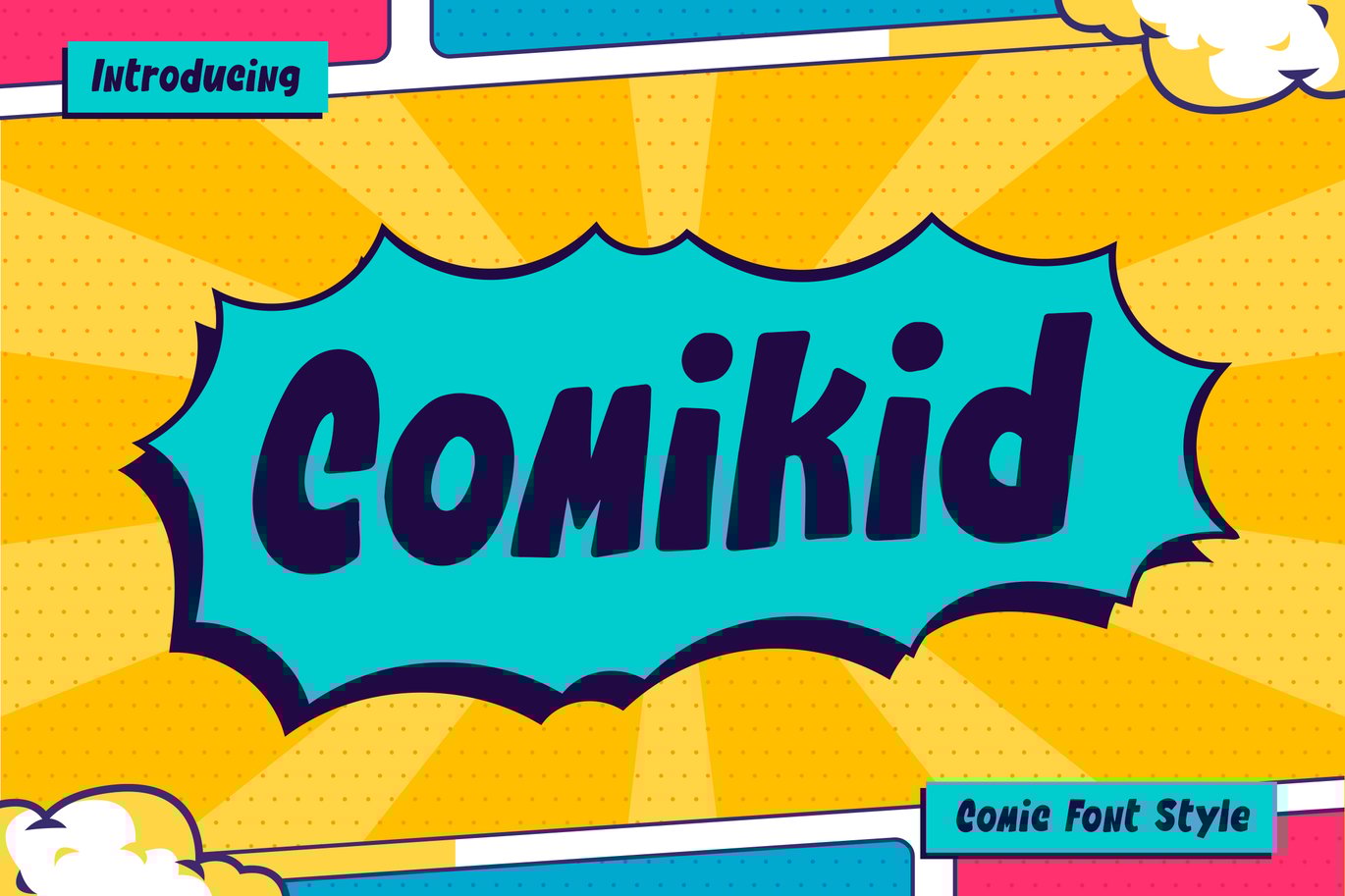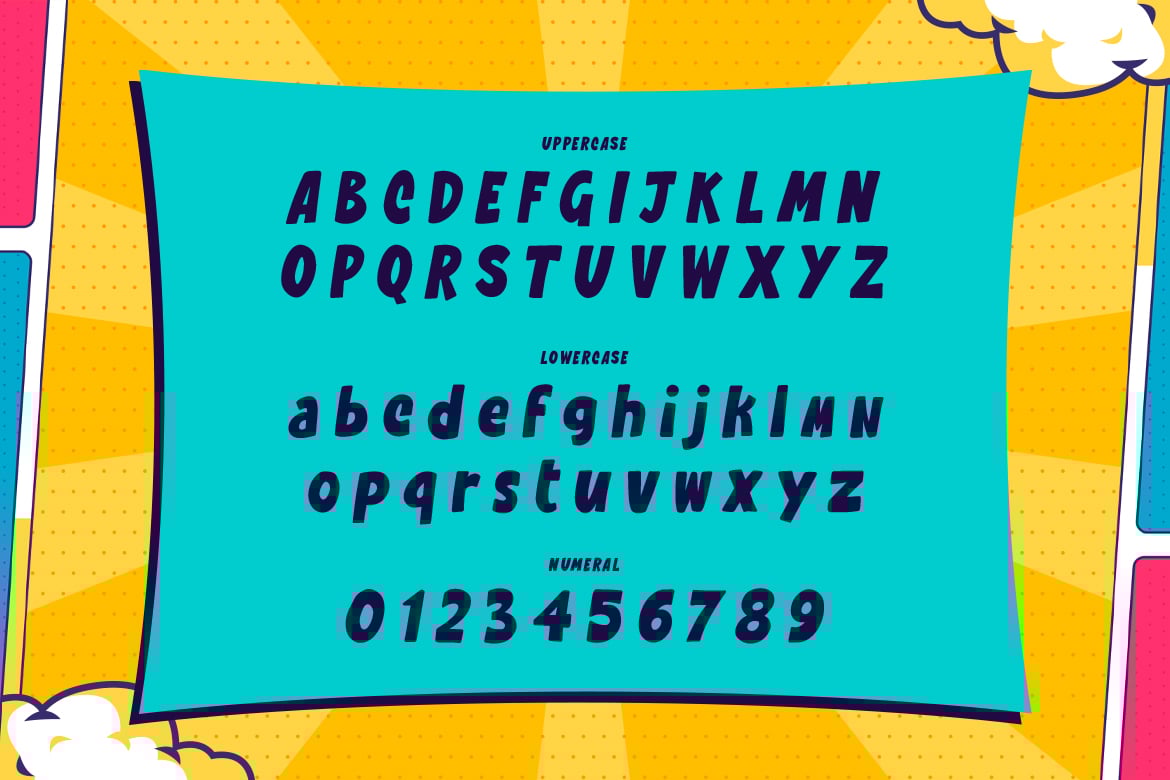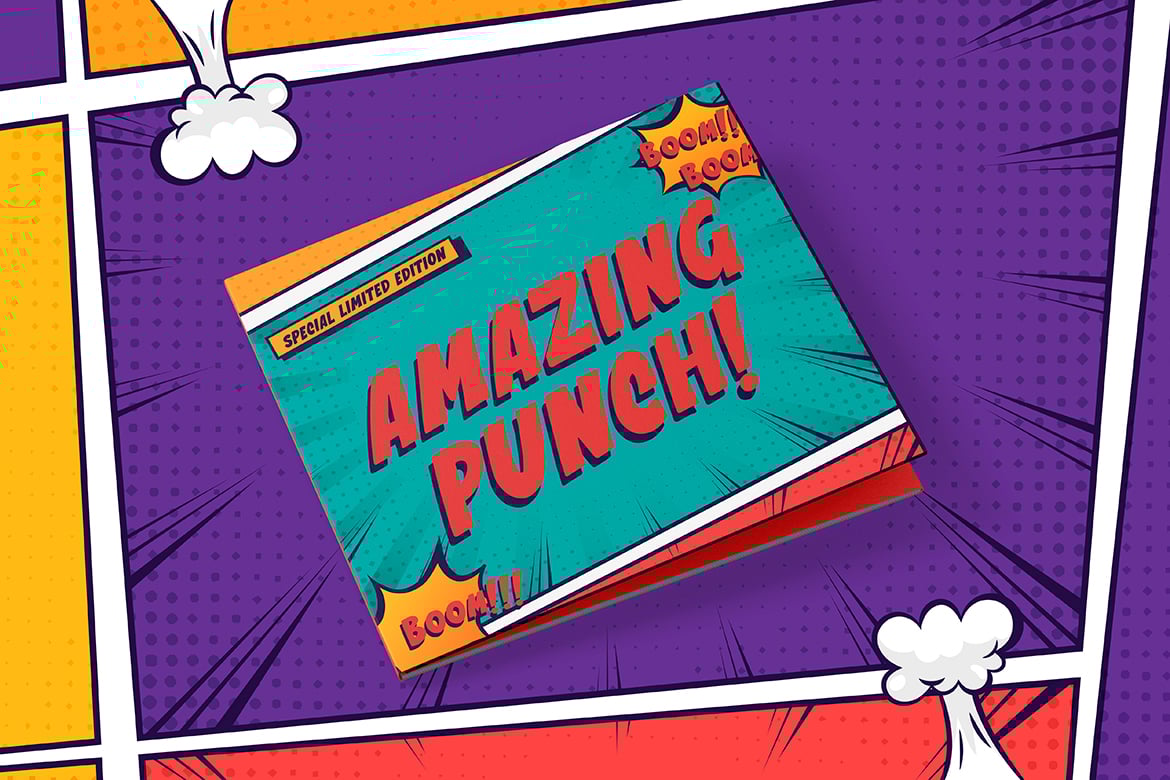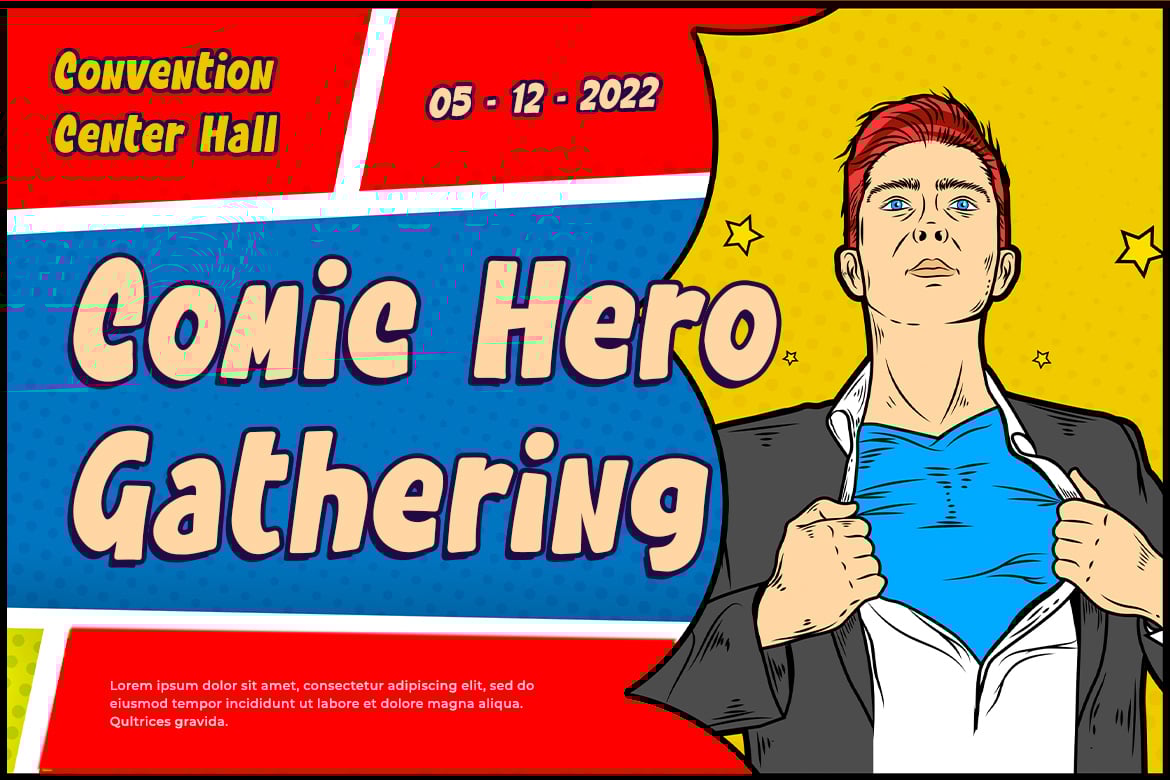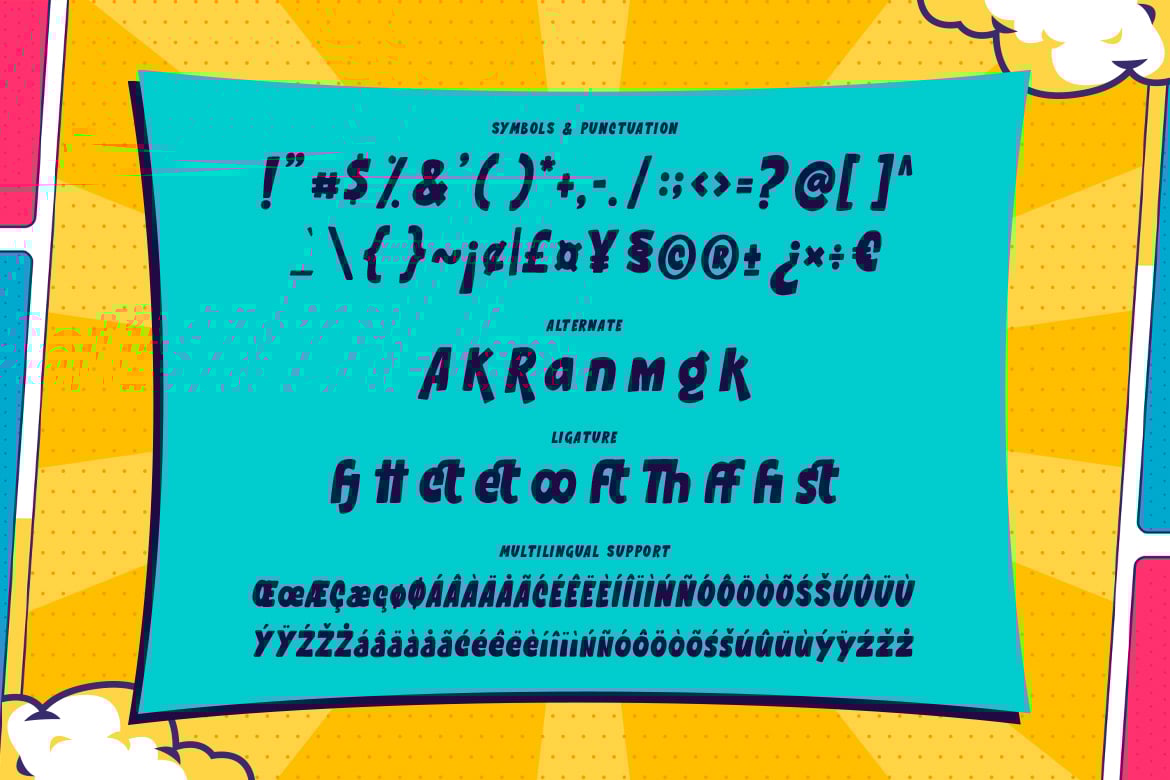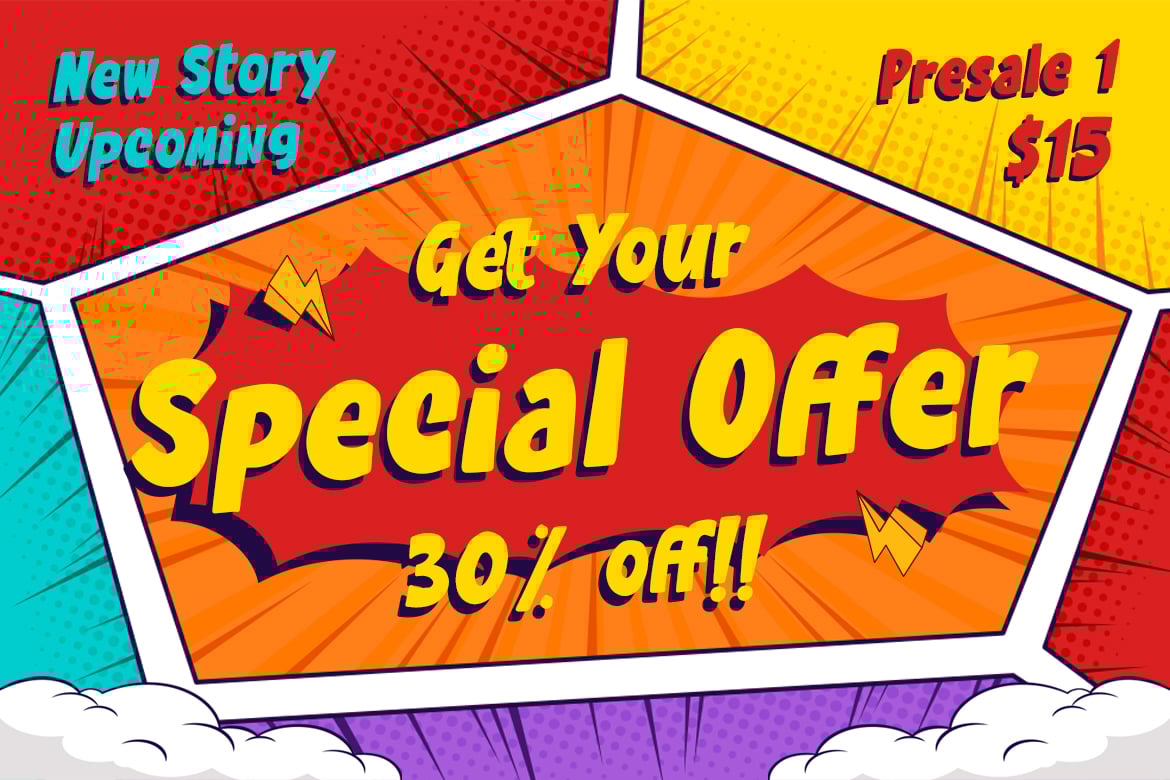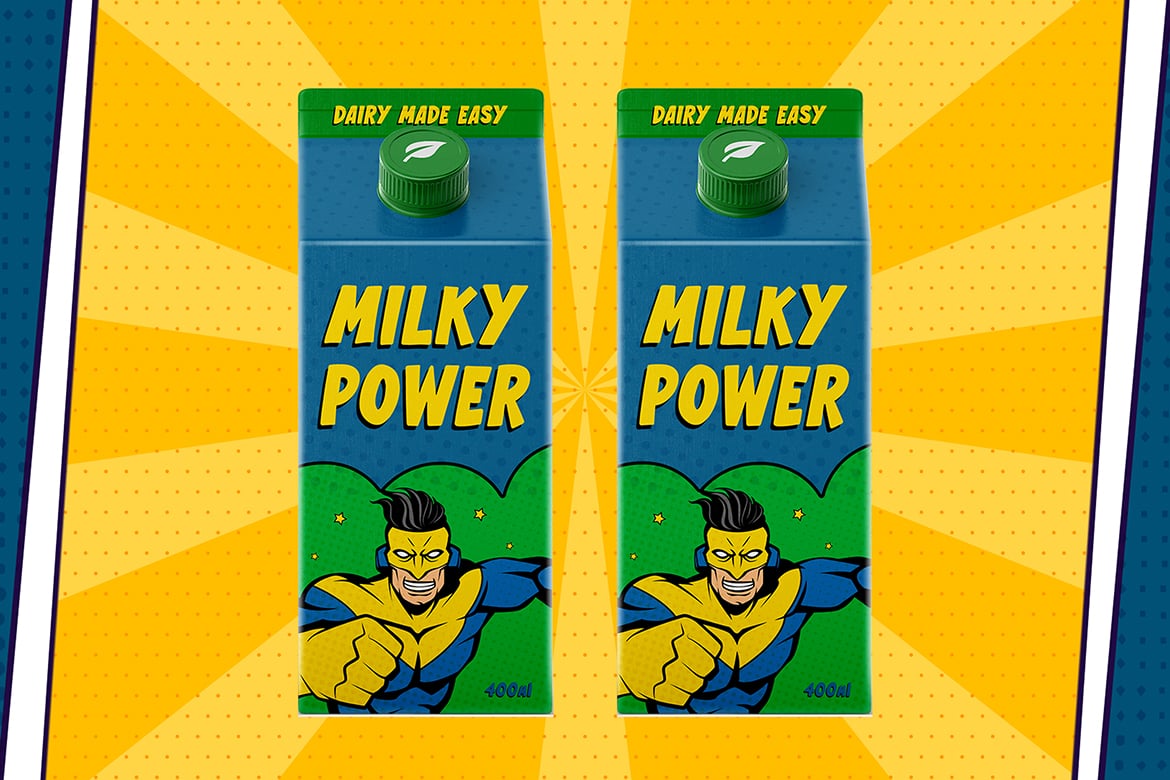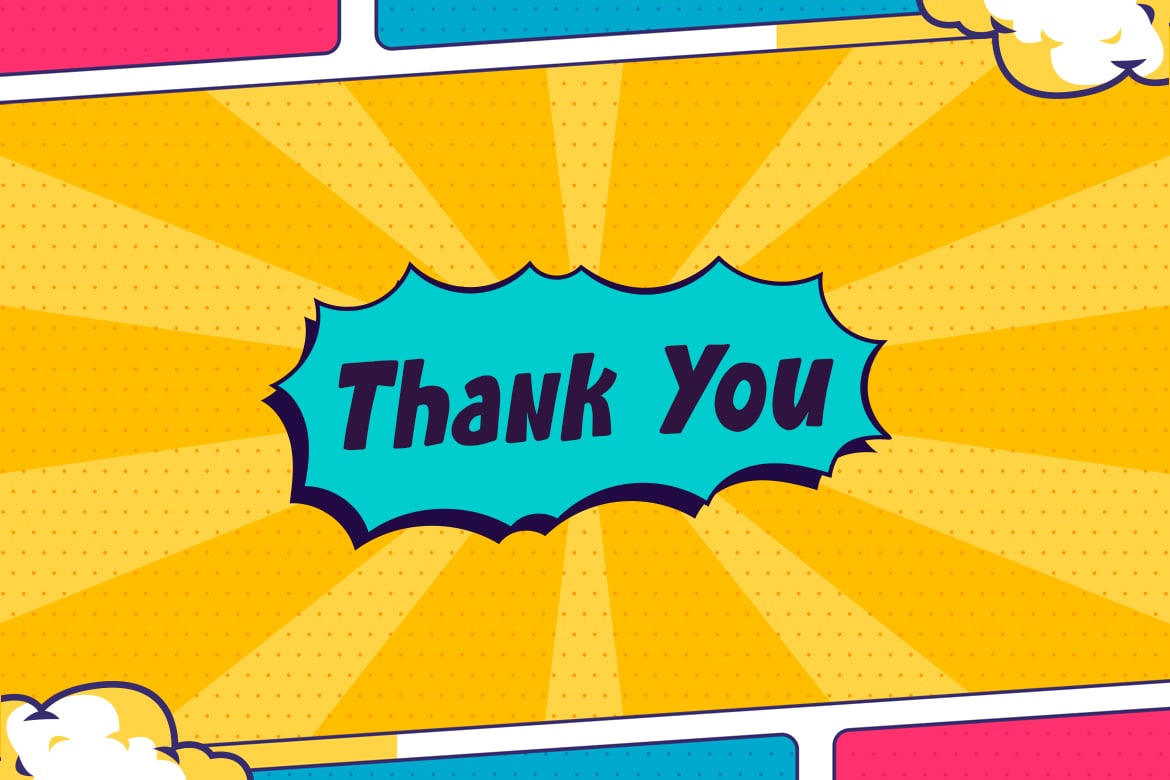
Comikid – Comic Font Style
Comikid is a simple comic font with unique style.
Get inspired by its unique charm, and turn any design project into a true standout!